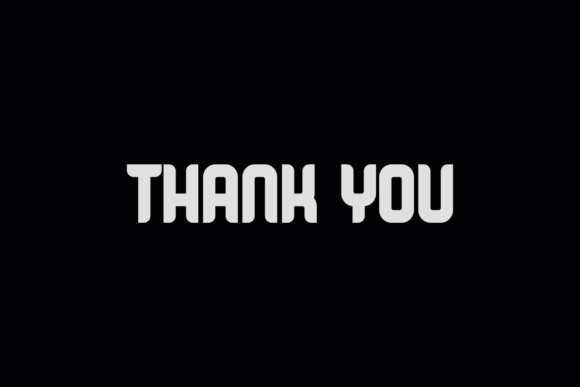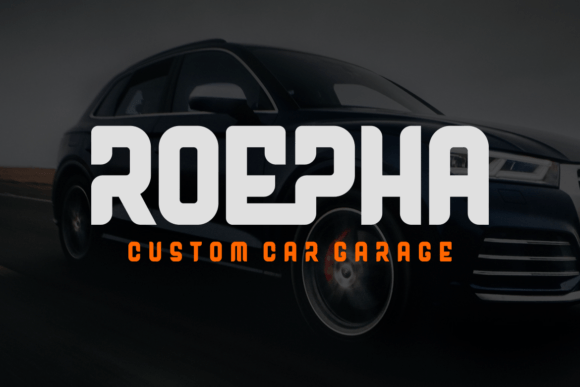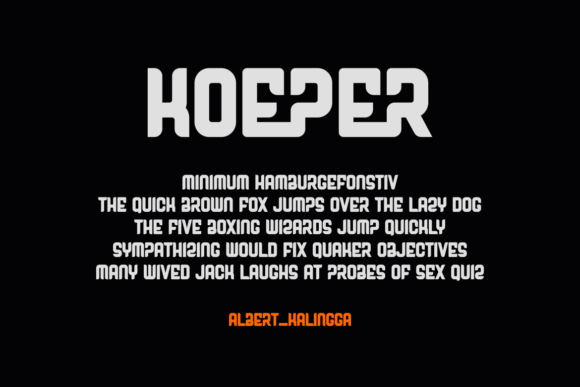
Introduction to Koeper Font
Koeper is a cool and modern display font.
Add it to your trendy projects and you will be impressed by the generated outcome .
Key Features of Koeper Font
Why Choose Koeper Font?
Koeper Font offers exceptional quality and versatility, making it a valuable addition to your design toolkit. Whether you’re creating for personal projects or commercial use, Koeper Font delivers professional results.